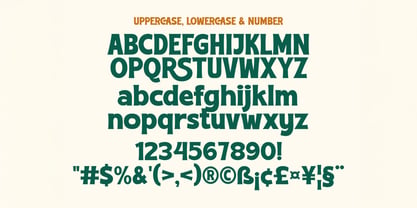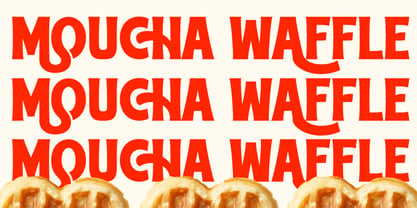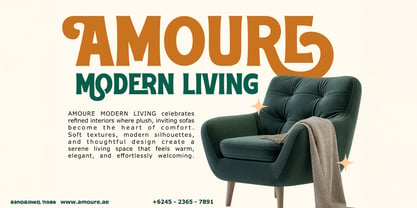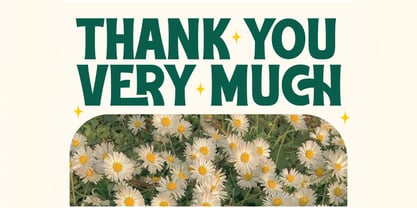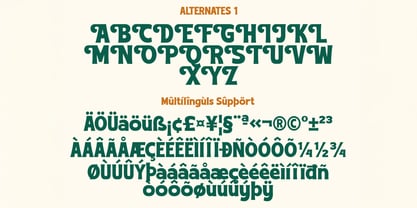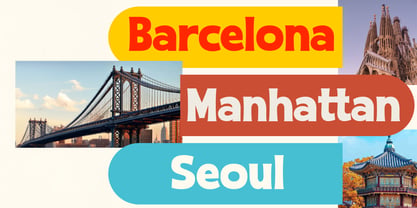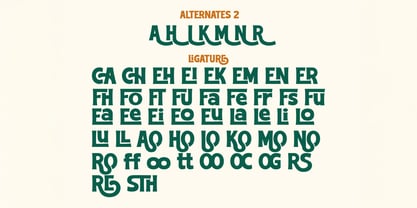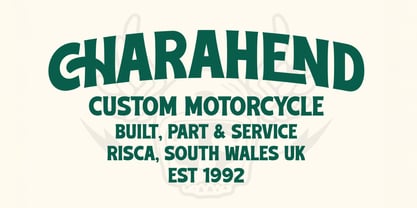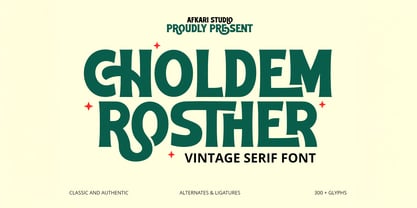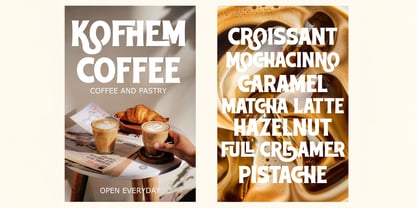
Choldem Rosther
by Afkari Studio
The Choldem Rosther Font Family was designed by Musthafa Kamal Emje and published by Afkari Studio. Choldem Rosther contains 1 styles. More about this family
Choldem Rosther is a vintage serif font crafted to capture the charm of classic typography with a refined, timeless character. Inspired by old editorial prints, heritage branding, and traditional signage, this font blends elegant serif details with strong letterforms—perfect for designs that require authenticity, sophistication, and historical depth. With carefully shaped serifs, balanced contrast, and graceful proportions, Choldem Rosther delivers a nostalgic feel while remaining clean and readable for modern use. It’s an excellent choice for branding, logos, packaging, book covers, posters, labels, and editorial layouts that demand a classic yet professional presence. Whether you’re building a heritage brand or adding vintage flair to contemporary design, Choldem Rosther brings character, elegance, and lasting appeal. Highlighted Features: - Uppercase, Lowercase, Number, and Punctuation - Special alternates and ligatures - Works on PC & Mac - Simple installations - Accessible in Adobe Illustrator, Adobe Photoshop, Adobe InDesign, and even work on Microsoft Word - Fully accessible without additional design software. - Mültîlíñgúãl Sùppört for; ä ö ü Ä Ö Ü ß ¿ ¡ Hope you enjoy our font and this font is a useful font for your projects!
Designers: Musthafa Kamal Emje
Foundry: Afkari Studio